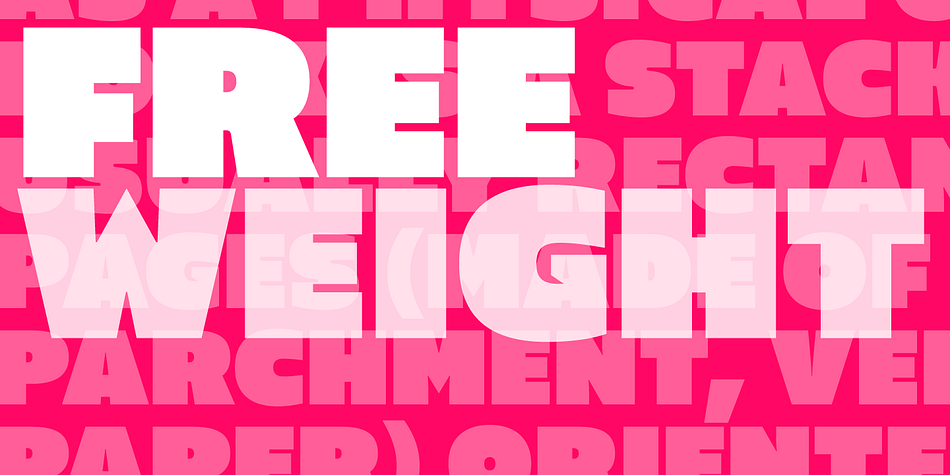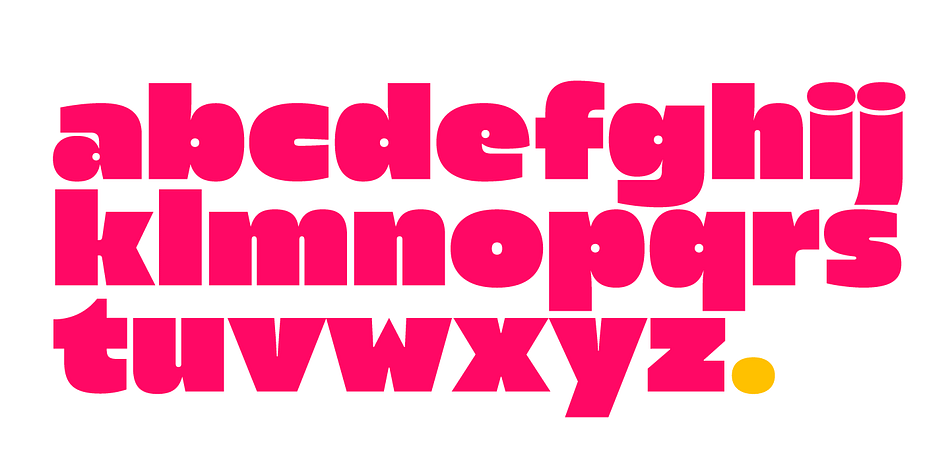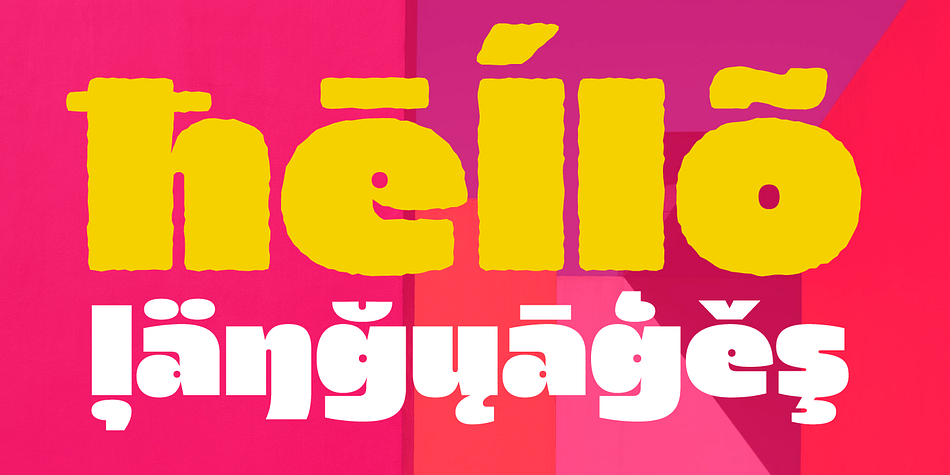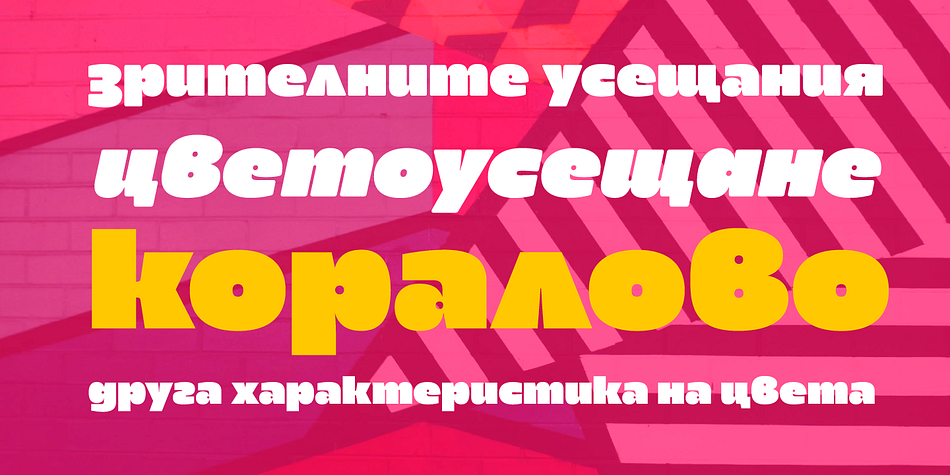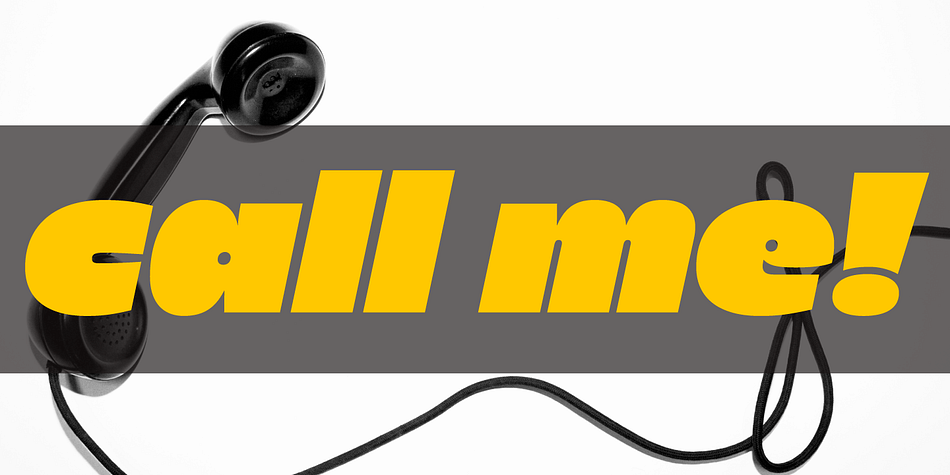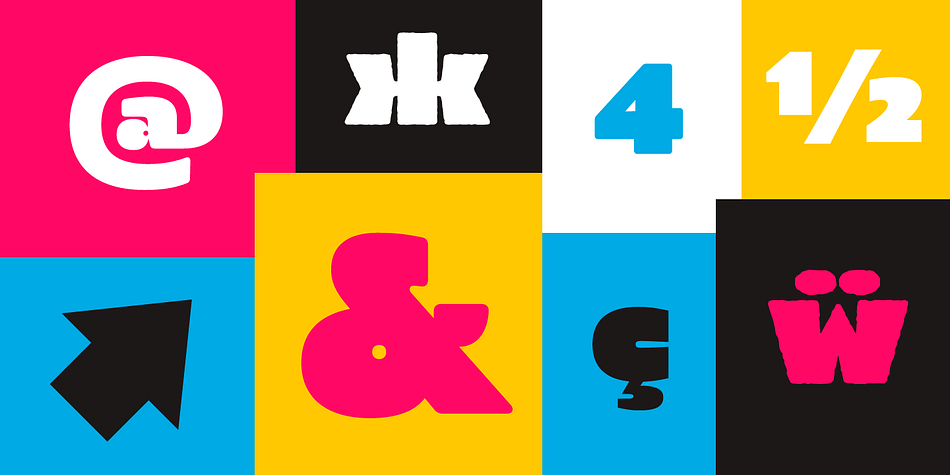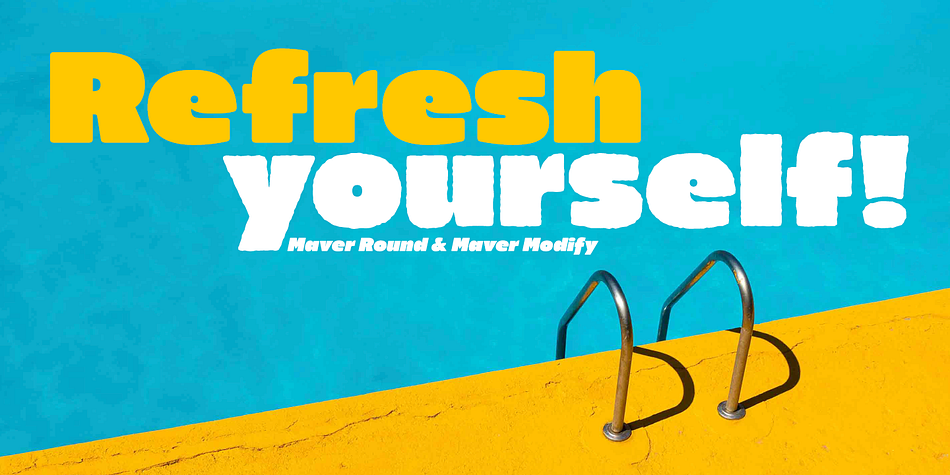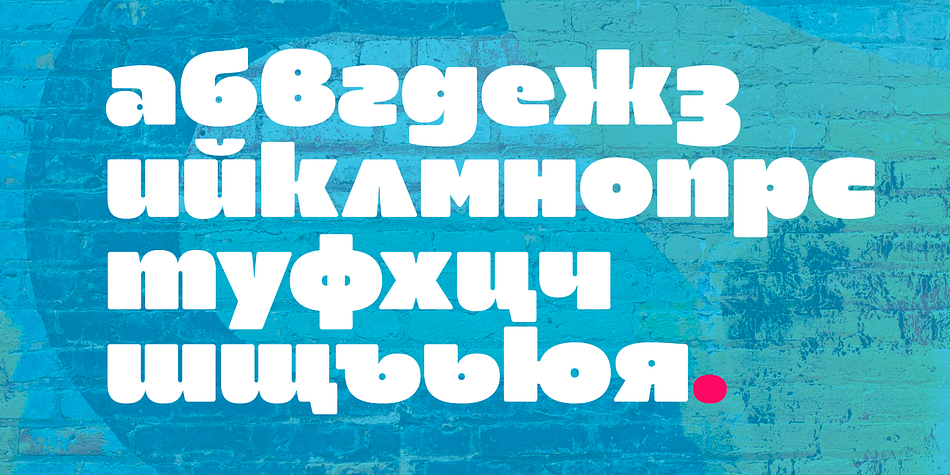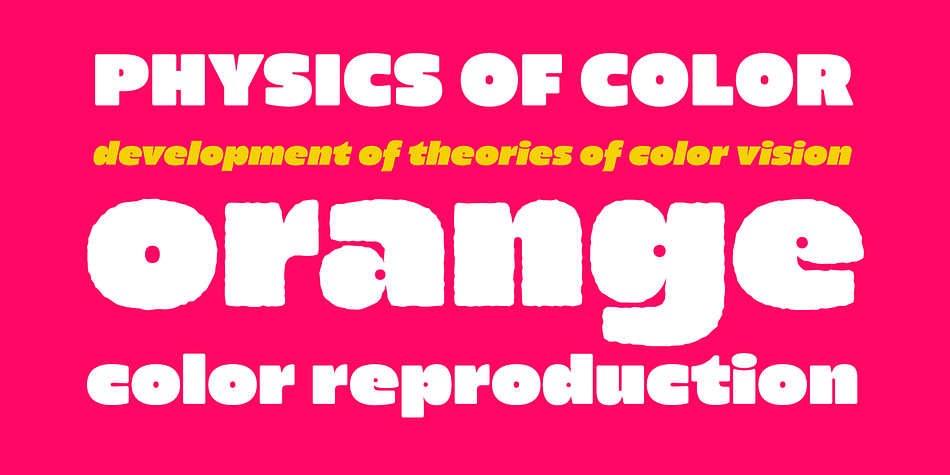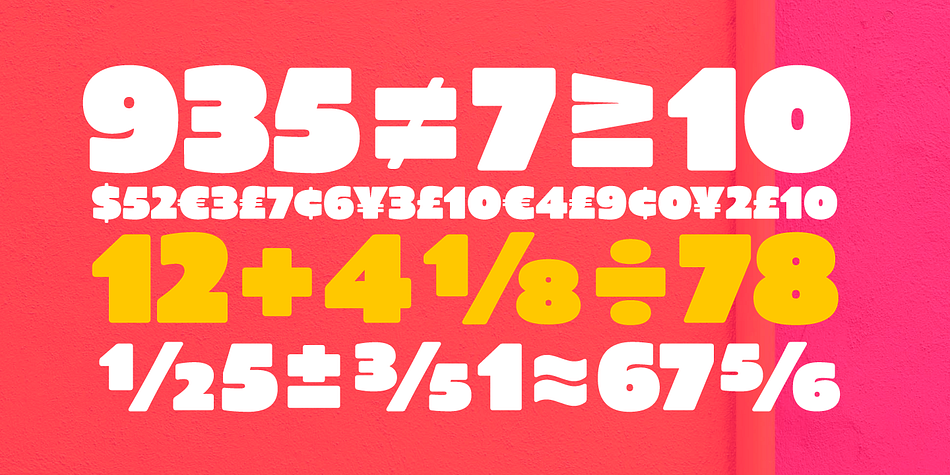
Designed by Ani Dimitrova, Maver is a sans serif font family. This typeface has seven styles and was published by Ani Dimitrova.
Maver is a 7 - style font family designed by Ani Dimitrova. Maver containing Regular, Italic, Round, Round Italic, Modify and Modify Italic weights. All weights contain standard ligatures, proportional figures, tabular figures, old-style figure, numerals, and arrows, matching currency symbols and fraction. The fonts are carefully hinted and its wide proportions make them a perfect choice for screen usage. This style palette offers a flexible range for display typography. The Maver type family is ideally suited for magazines, branding, posters, as well as web and screen design and more.